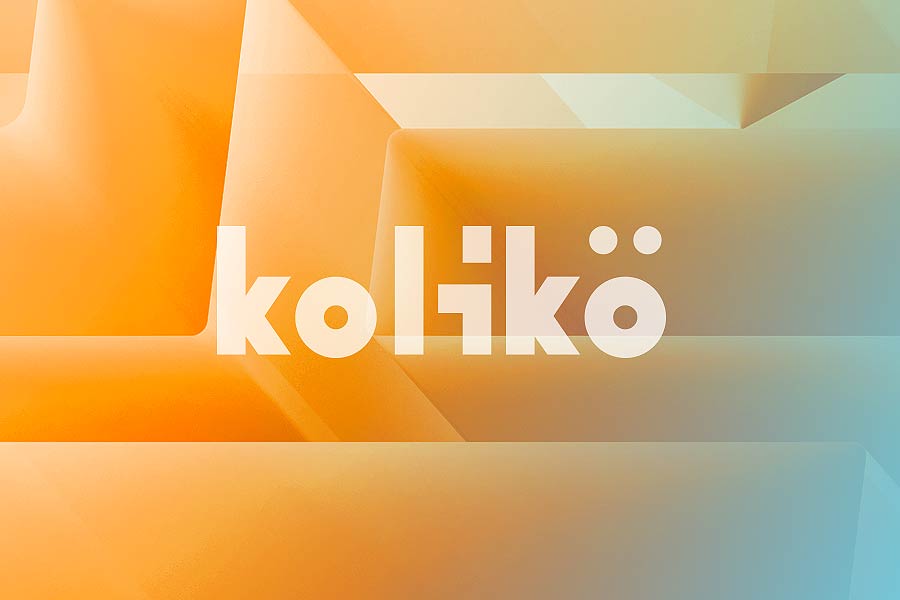
Kolikö is a free geometrical sans serif font that comes in three weights. It’s edgy with plain curves, clean, and functional structure. This font would work great on big headlines, but not so much for lengthy text. Kolikö supports both latin and cyrillic characters.
- Designer: Alex Frukta, Vladimir Tomin
- Styles: 3 (light, regular and bold)
- Category: Sans Serif